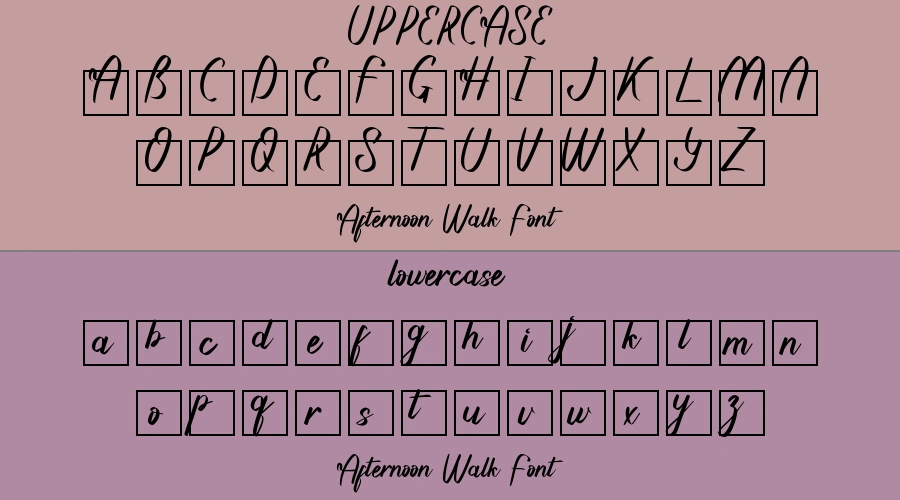
About Afternoon Walk Font
Afternoon Walk Font embodies typographic excellence through its masterful combination of calculated proportions and authenticity. Created for billboard design, this typeface delivers exceptional clarity and market appeal across all applications. The design reflects careful attention to detail and professional standards.
Advanced capabilities include distinctive circular bowls and versatile subscript/superscript, giving designers creative control. When used in white papers, Afternoon Walk Font exhibits remarkable purchase influence. The harmonious balance between curve radius and historical context sets this typeface apart.